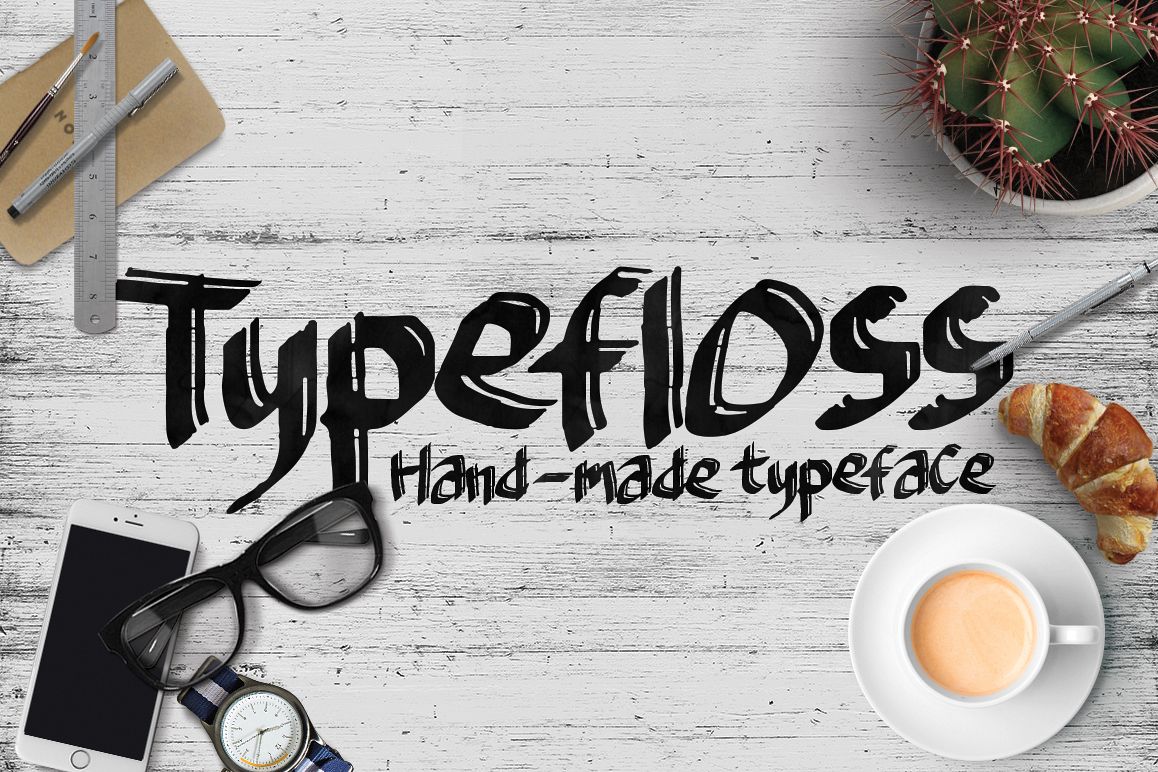
Introducing "Typefloss Handmade Typeface"
Can be used for various purposes namely headings, logos, wedding invitations, t-shirts, letterheads, signages, labels, news, posters, badges etc.
Numeral & Punctuations